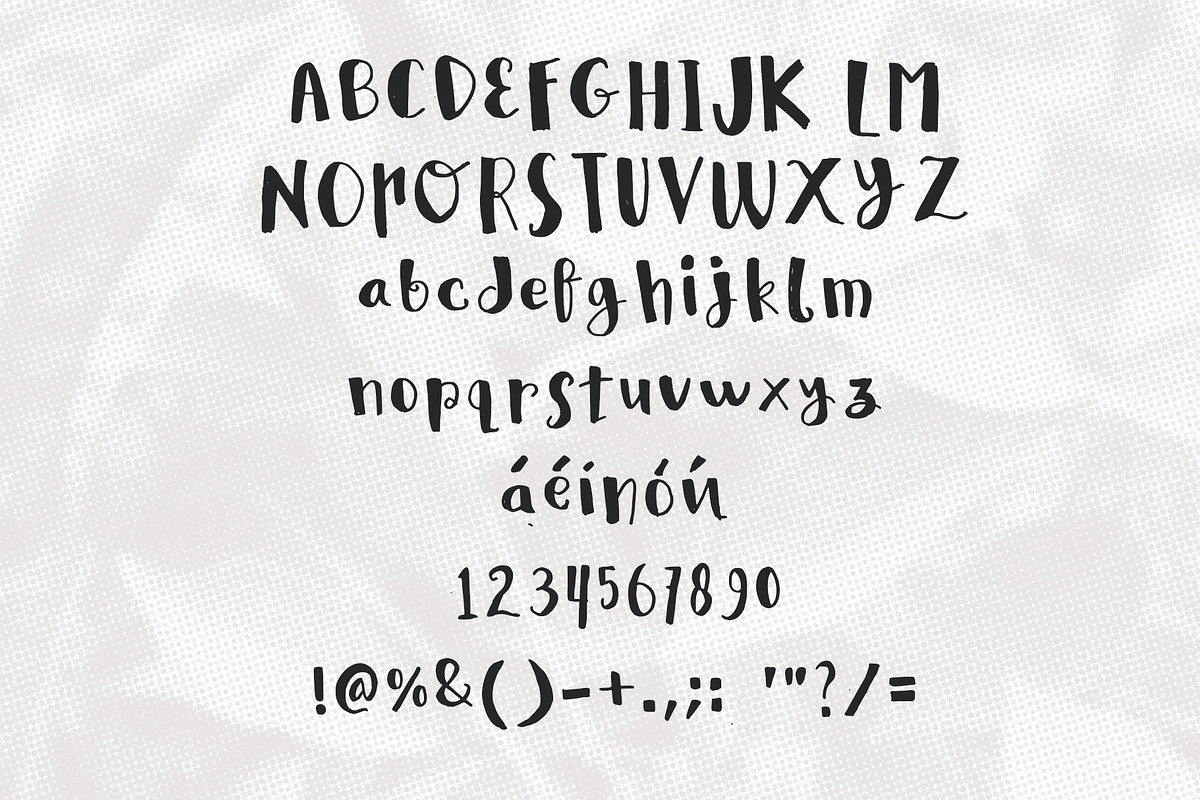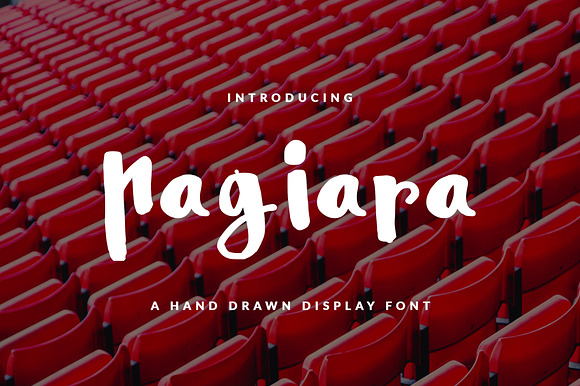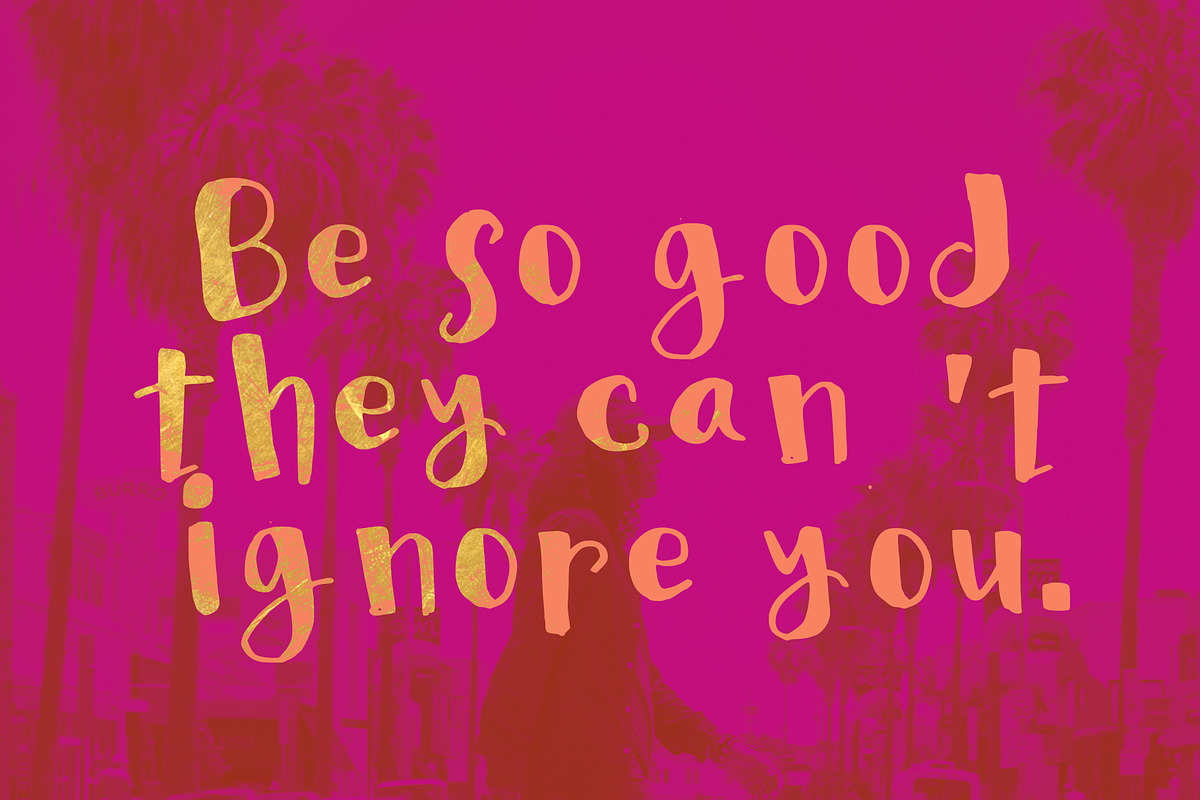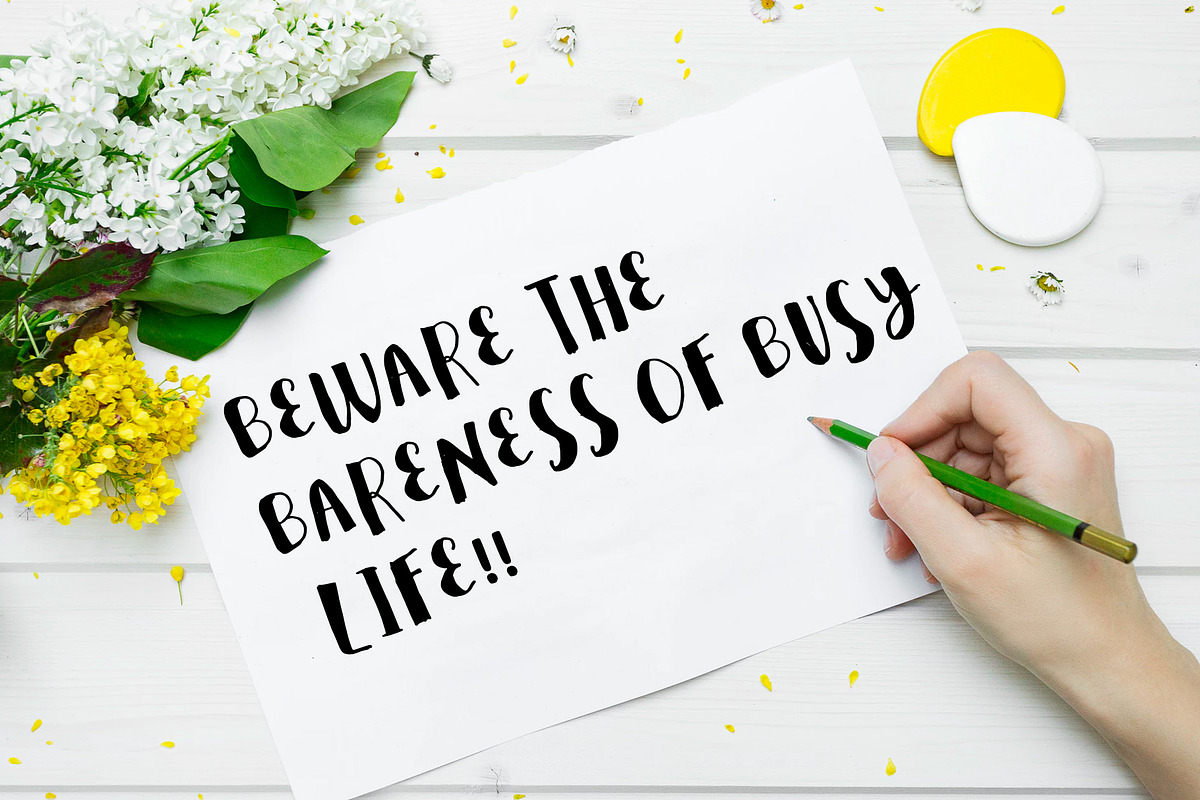
Pagiara Font Feminine & Header
Sans serif hand-drawn display font called Pagiara was designed for modern, classic, feminine, unique and other style also fit for Header website, general use for header text, kids stories, books, poems and other long text
Pagiara Font Feminine & Header by NadaNora fits naturally into Branding, posters, packaging, typography.